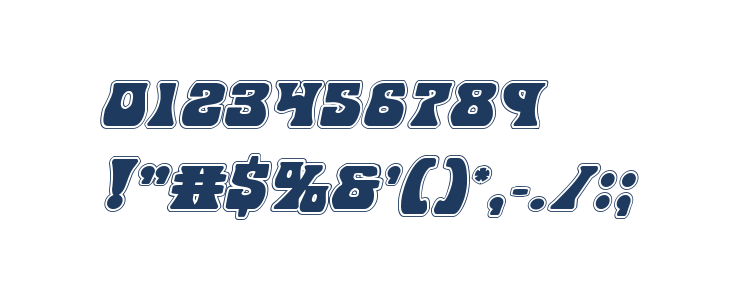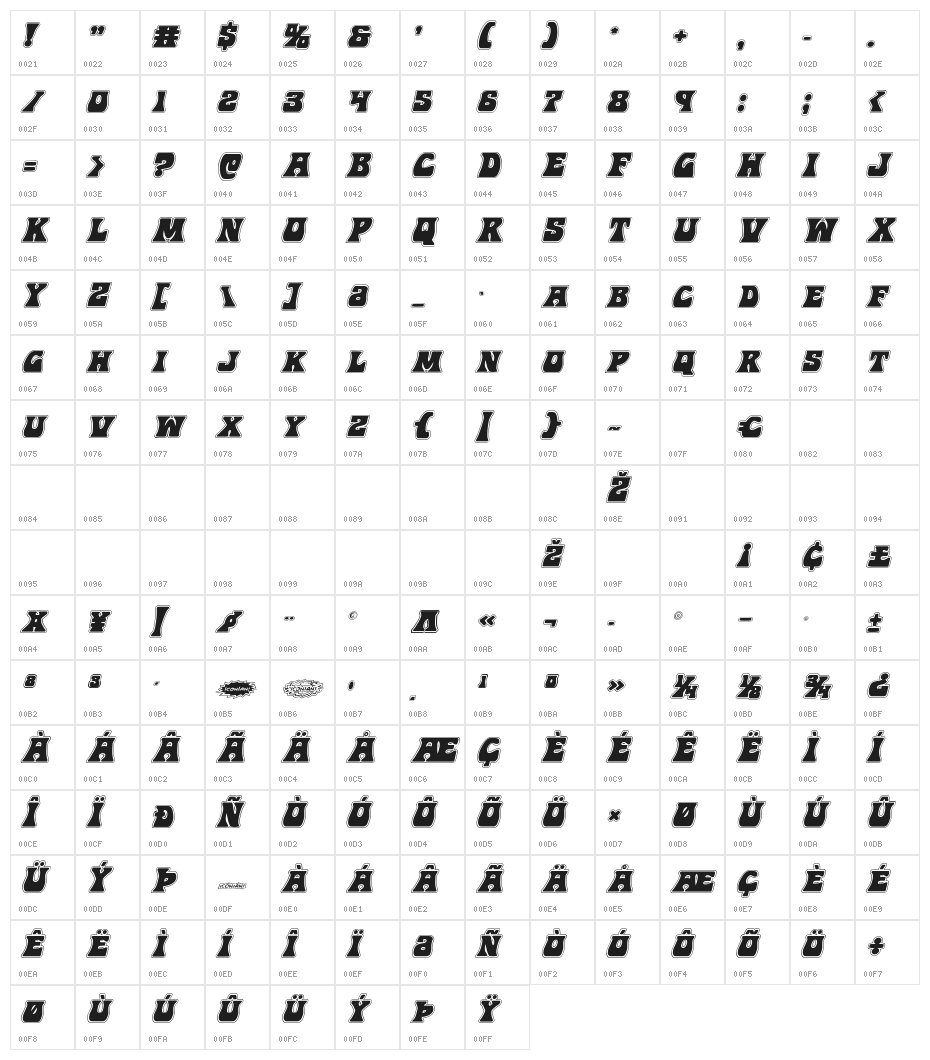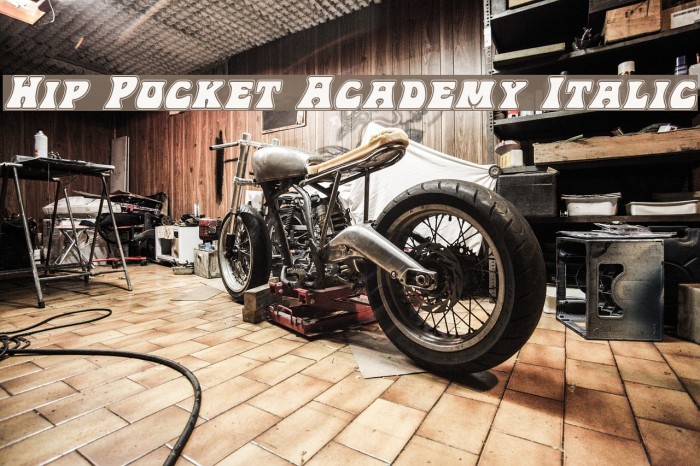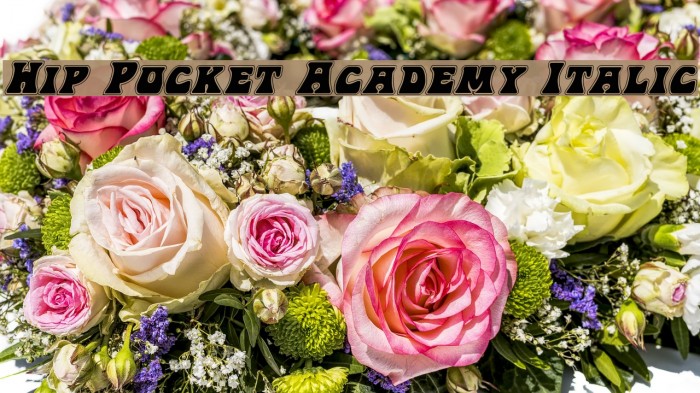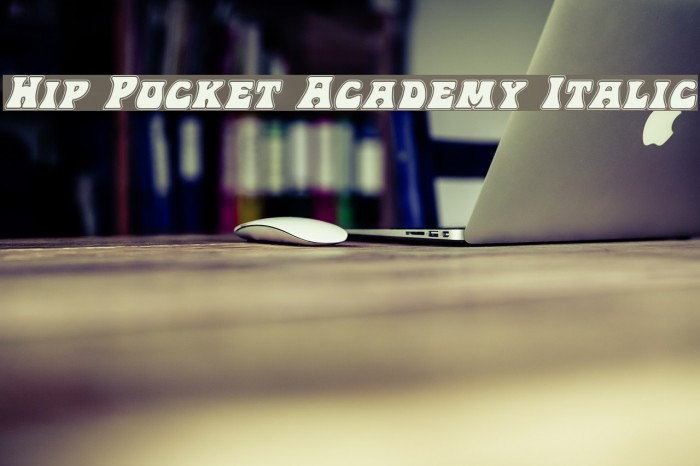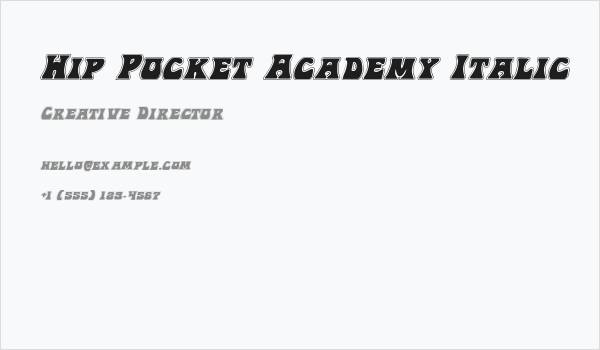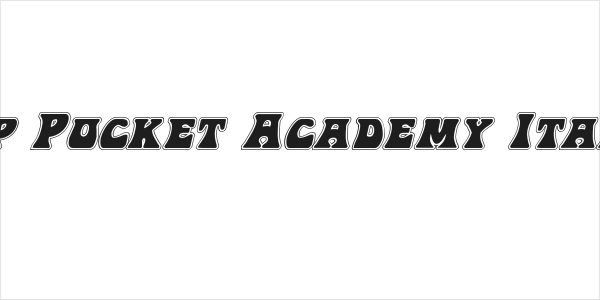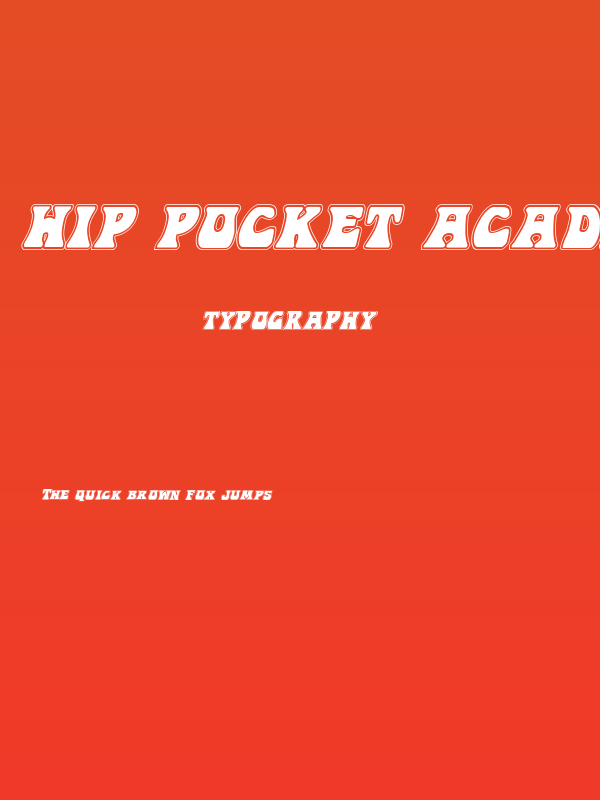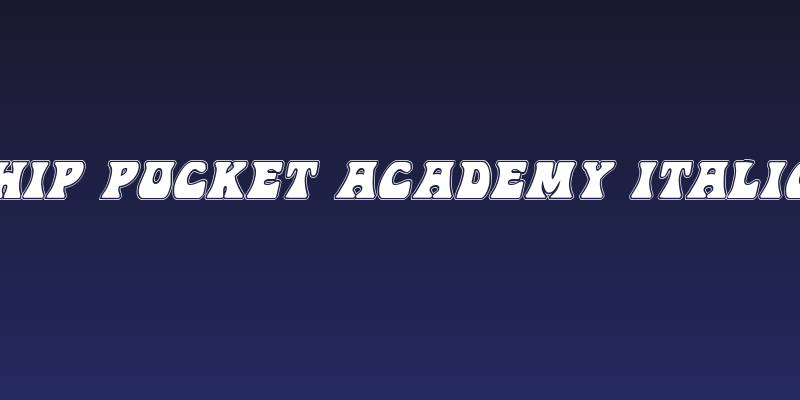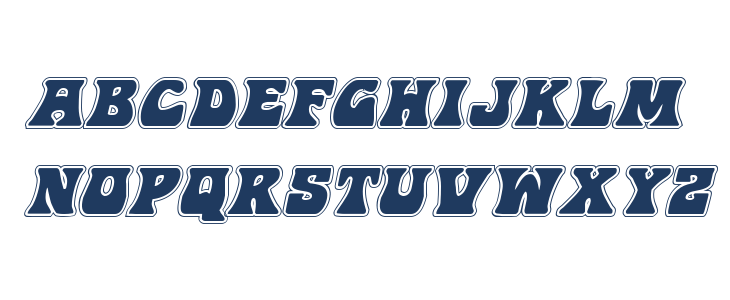
Hip Pocket Academy Italic Font
Hip Pocket Academy Italic Description
This font features a bold and dynamic style with a strong presence, characterized by thick, rounded strokes and a distinct outline that gives each character a three-dimensional effect. The uppercase and lowercase letters maintain a consistent weight, providing a cohesive look across the alphabet. The numbers and special characters follow the same design principles, ensuring uniformity throughout. The italic slant adds a sense of motion and energy, making it suitable for attention-grabbing designs. The font's playful yet robust appearance makes it ideal for projects that require a bold statement.
| Proposed Projects | Ideal for posters, logos, headlines, and any design that requires a bold, eye-catching font. |